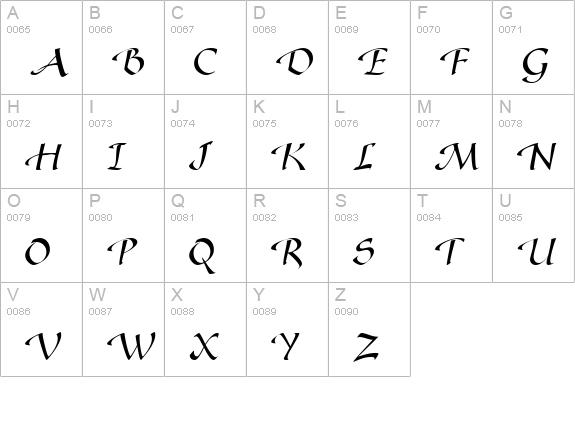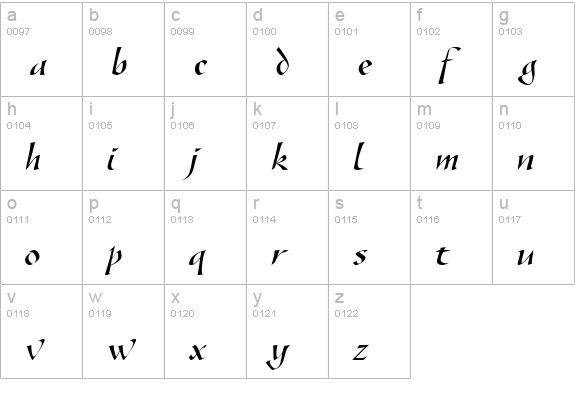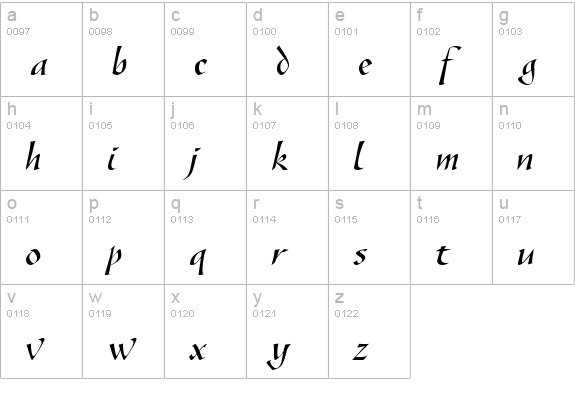
Gaze Normal Font Details
Gaze Normal is the standard, neutral variant in the Gaze typeface family \xE2\x80\x94 well suited to general body text, paragraphs, and standard typographic work.
Gaze Normal font is a sleek and elegant typeface that exudes sophistication and modernity. With its clean lines and balanced proportions, this font is perfect for a wide range of design projects, from branding to editorial work. The Gaze Normal font is versatile and easy to read, making it a great choice for both digital and print applications. Best of all, Gaze Normal is available for free download at FontsMarket.com. This means that you can easily access this stylish font without breaking the bank. Whether you're a professional designer or a hobbyist looking to add a touch of class to your projects, Gaze Normal is a fantastic choice that won't cost you a penny. Download it today and elevate your designs with this stunning typeface.